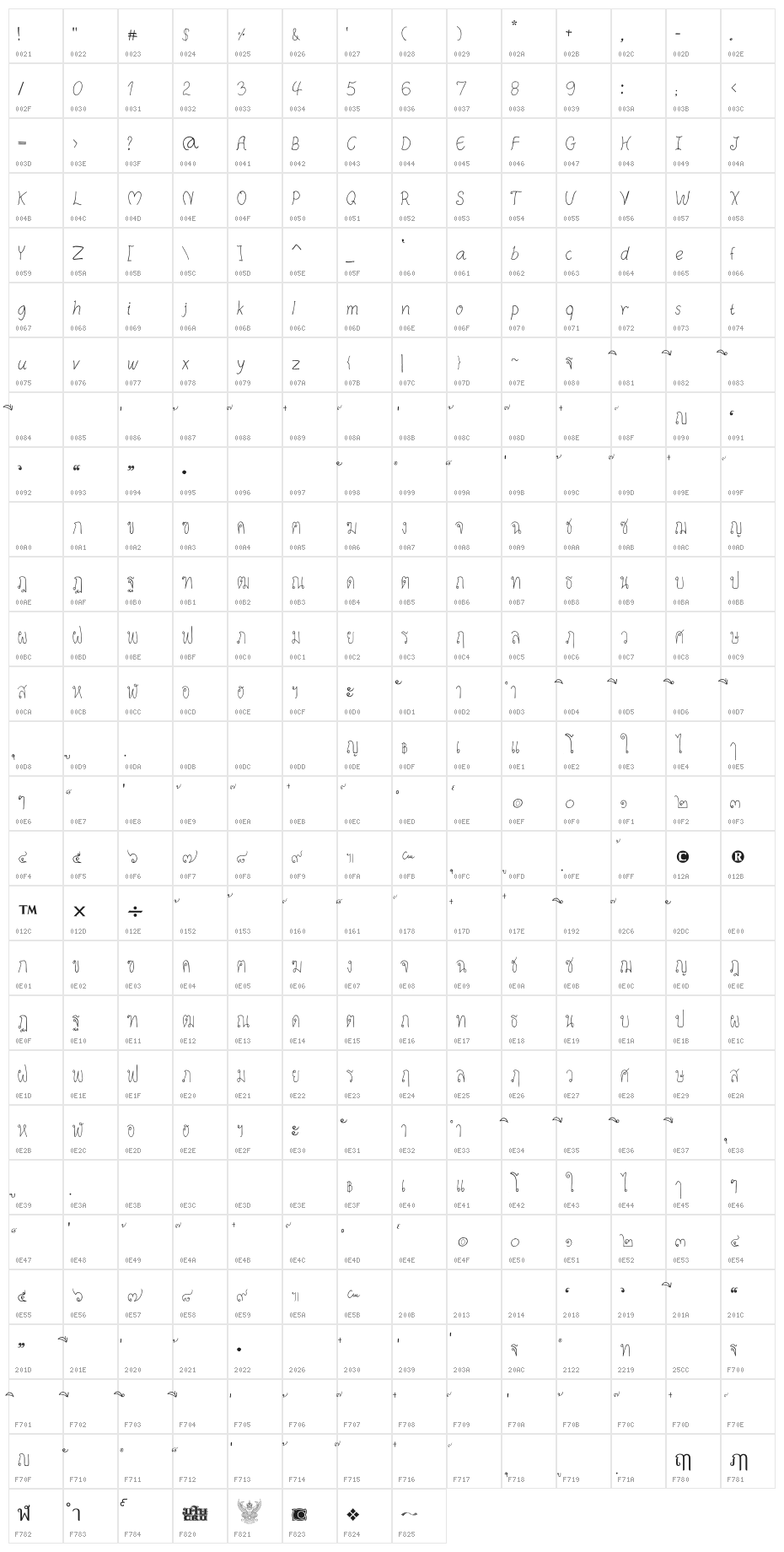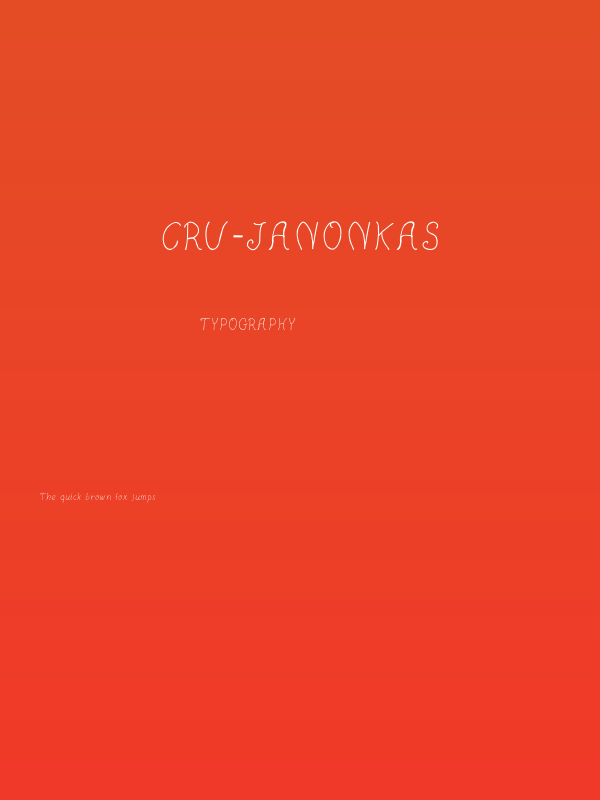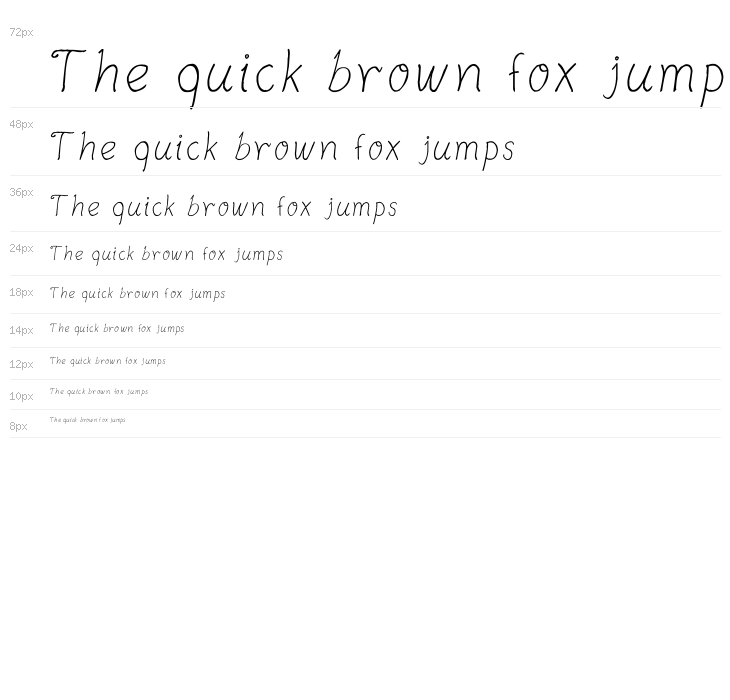
CRU-Janonkas Font
CRU-Janonkas Description
This font features a delicate and flowing script style, characterized by its elegant and slightly whimsical appearance. The letters are thin and slightly slanted, giving a sense of movement and grace. The uppercase letters have a distinct flair, with some strokes extending beyond the baseline, adding a touch of sophistication. The lowercase letters maintain a consistent style, with gentle curves and loops that enhance readability. The numerals are clear and complement the overall aesthetic, while the special characters are designed to match the font's elegant theme. This font is ideal for projects that require a touch of elegance and creativity.
| Use Case | Headlines, Invitations, Logos |
| Proposed Projects | Ideal for wedding invitations, greeting cards, elegant branding, and creative projects. |